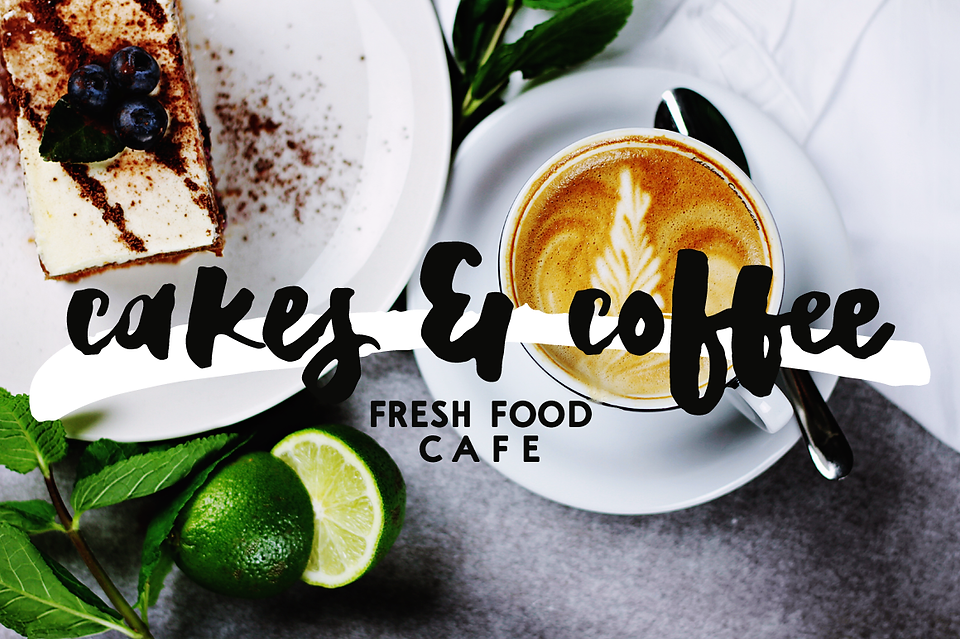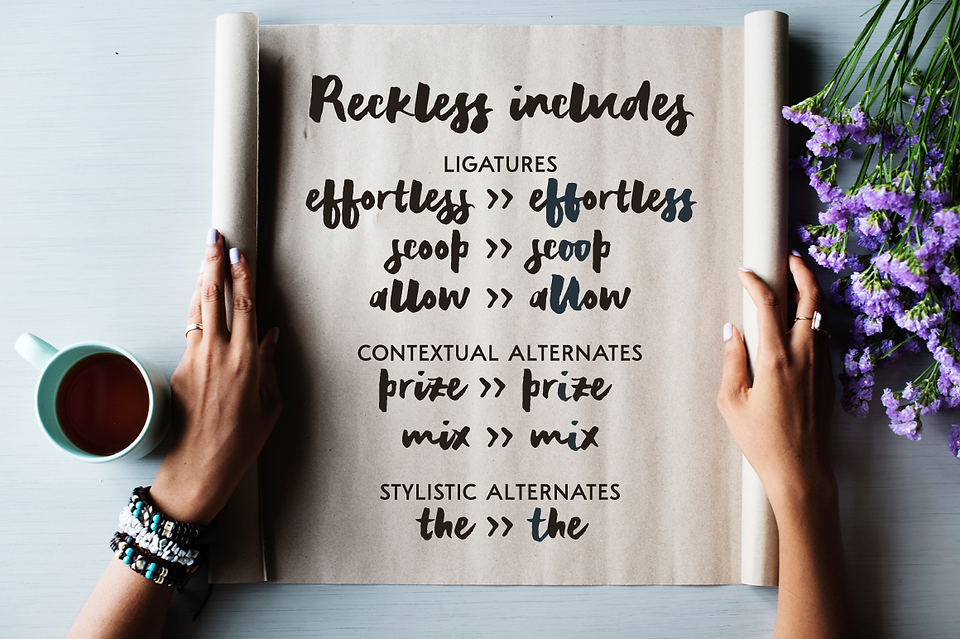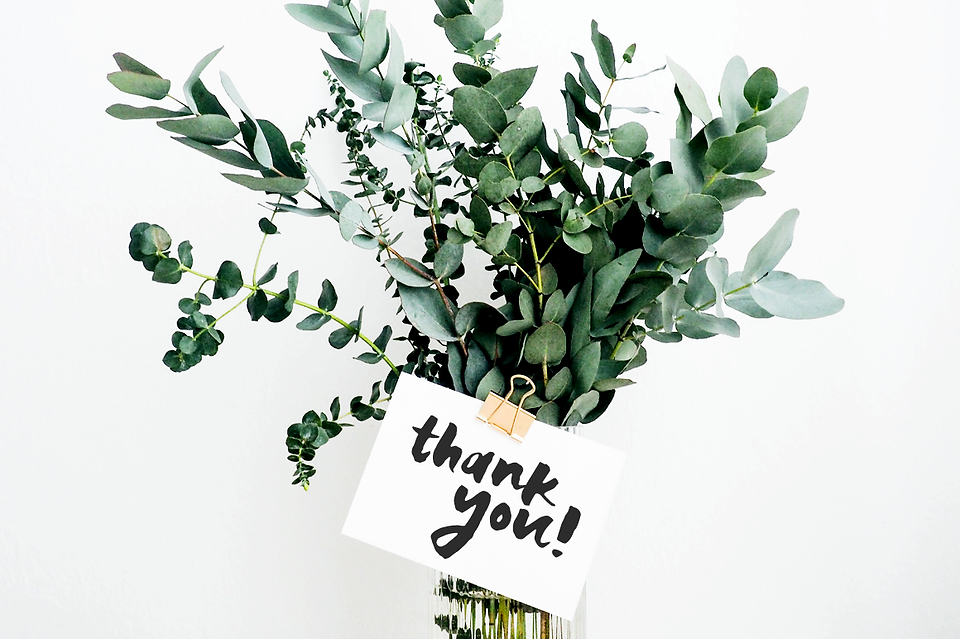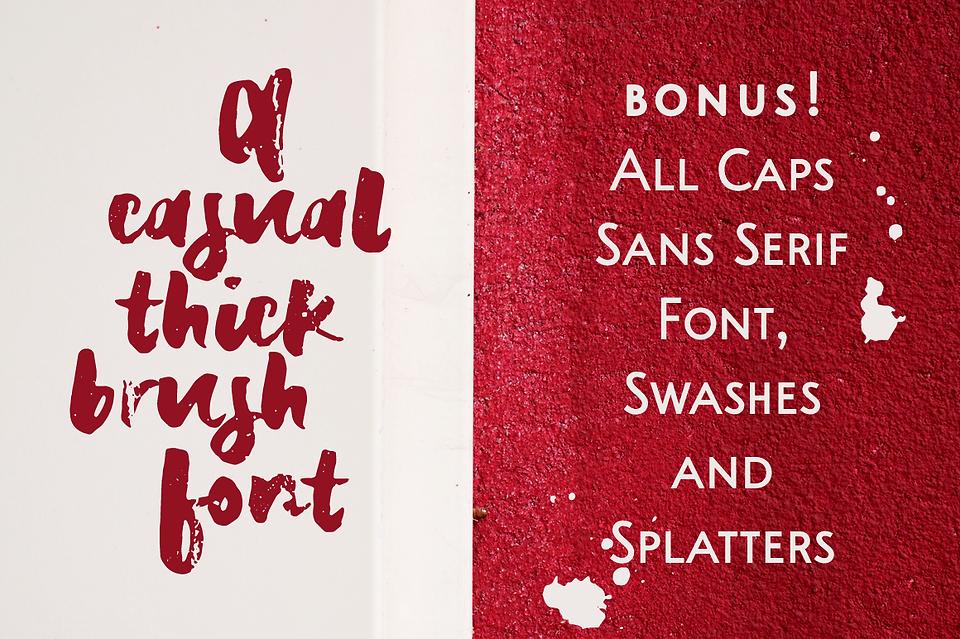
New font! Reckless
I would like to present you to my new font, Reckless! Reckless is a thick brush font with a faded alternative and tons of extras: a bonus all caps sans serif in regular and bold, plus a set of 26 splatters and swashes that match the font perfectly. Check it out below!
Reckless